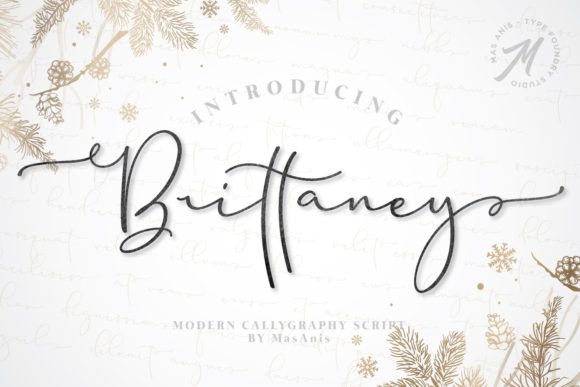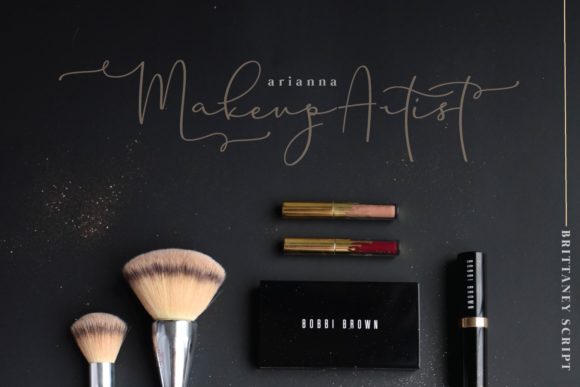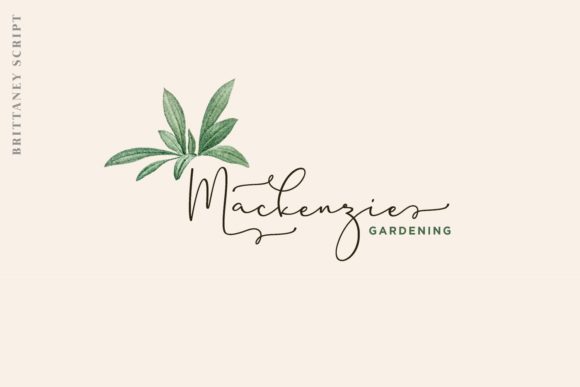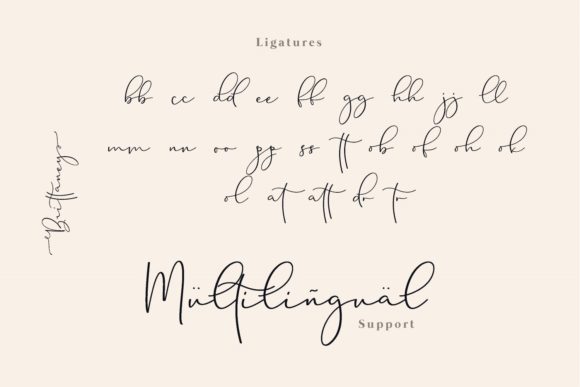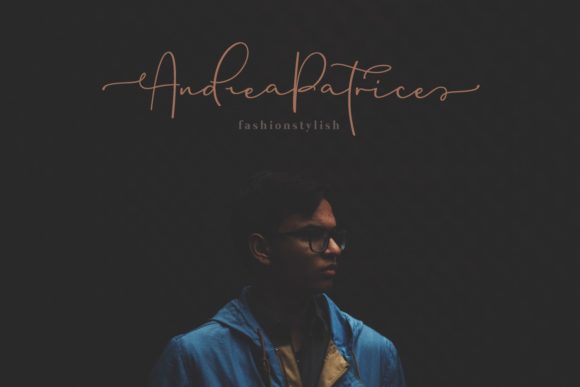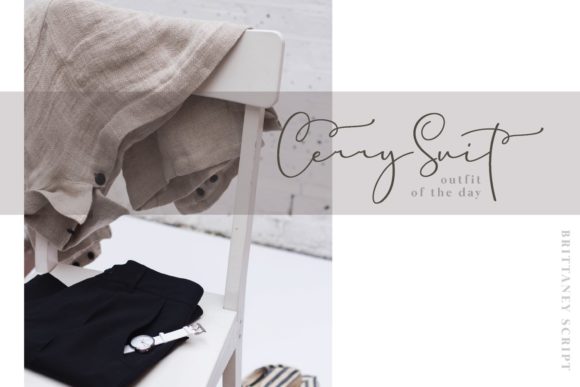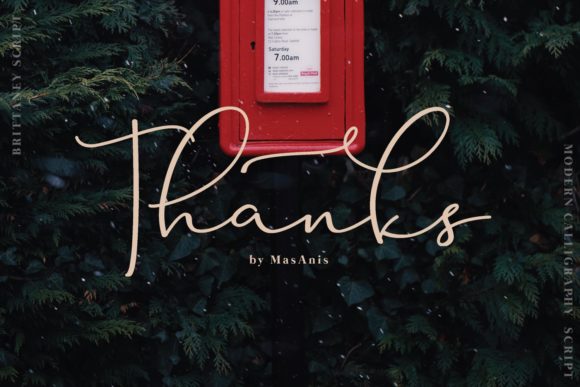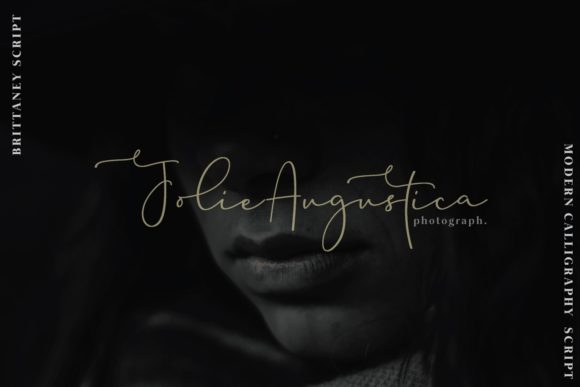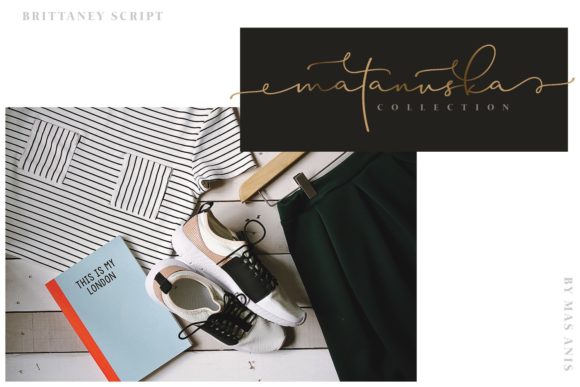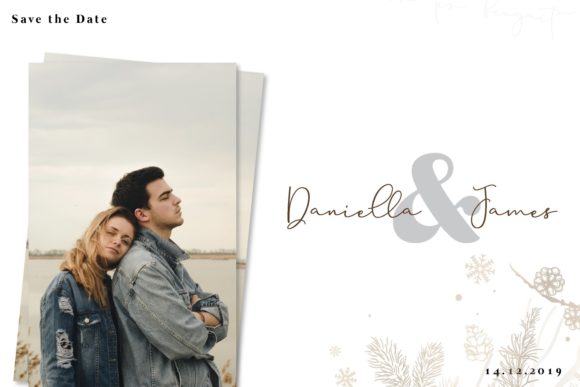
HomeScript FontsBrittaney Font Script Fonts Brittaney Font FacebookXPinterestWhatsApp Brittaney Font Poster 2 Brittaney Font Poster 3 Brittaney Font Poster 4 Brittaney Font Poster 5 Brittaney Font Poster 6 Brittaney Font Poster 7 Brittaney Font Poster 8 Brittaney Font Poster 9 Brittaney Font Poster 10 Brittaney Font Poster 11 Brittaney Font Poster 12 Brittaney Font Poster 13 Brittaney Font Poster 14 Brittaney Font Poster 15 About Brittaney Font The Brittaney is a modern and elegant font. It includes a lot of stylistic alternates to make an amazing design. DOWNLOAD ON CREATIVE FABRICAThis font is sold and delivered by Creative Fabrica. Font Canyon may earn a commission if you buy through this link. People also explored Mirabelya Font Bonandito Thing Duo Font Mondany Font Black Rose Font Holiday Font Billystory Font Sketchbook Font Fibon Sunday in Adelaide Font 353 0 TagsBrittaney Font Previous articleSilvester FontNext articleBrigita Font LEAVE A REPLY Cancel reply Comment: Please enter your comment! Name:* Please enter your name here Email:* You have entered an incorrect email address! Please enter your email address here Website: Save my name, email, and website in this browser for the next time I comment. Personal Use Free Hello, How Are You? Personal Use Free Read more about this font Juliagar Personal Use Free Read more about this font Authurium Personal Use Free Read more about this font Die Nasty Personal Use Free Read more about this font BLOG Exploring Font Trends Shaping Communication in the Digital Era Fonts, like all design elements, are subject to trends. They play a crucial role in communicating a brand's personality,... Top 10 Handwritten Fonts That Elevate Your Designs Elegant Wedding Invitation Fonts – Handwritten & Script Fonts How to Cut Any Font on Cricut: Convert a Font to SVG (Free)